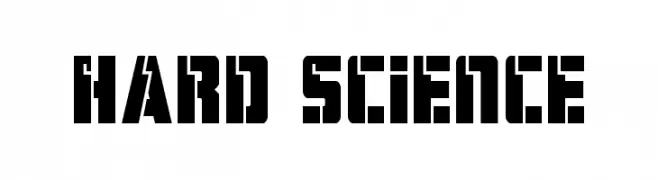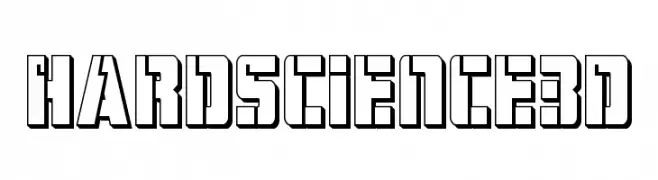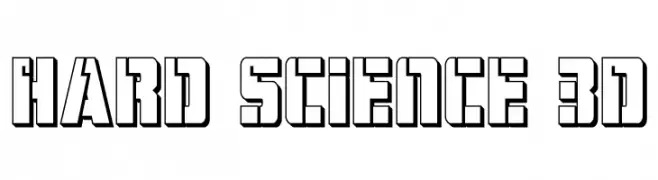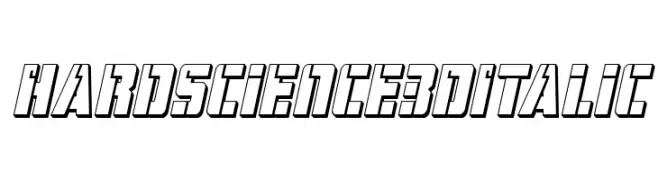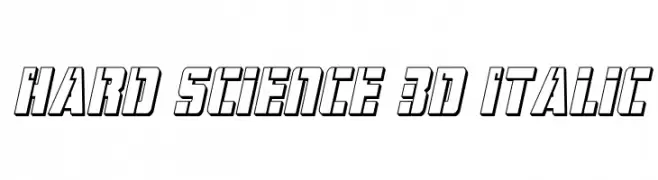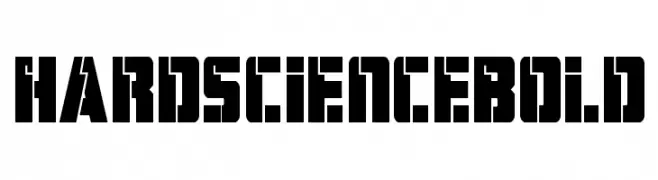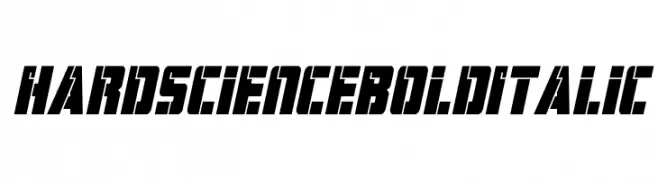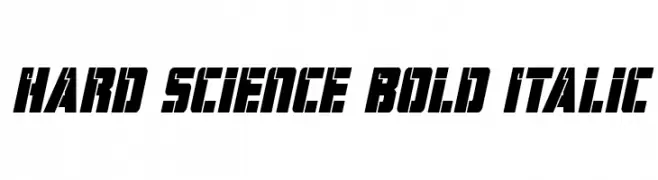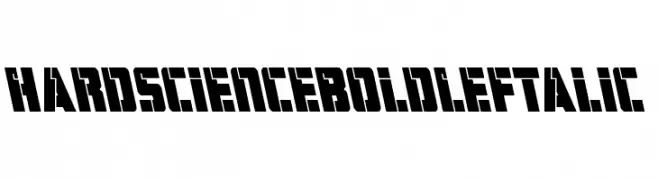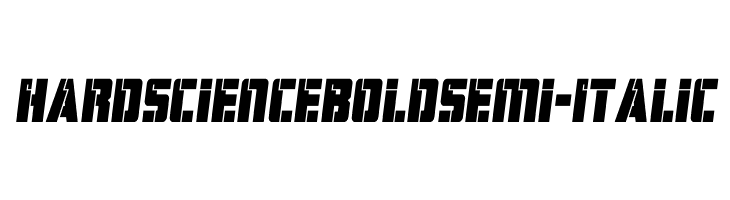
A bold, geometric font with an industrial and futuristic style.
A bold, 3D outlined font with a modern, futuristic style.
A bold, 3D geometric font with strong outlines and industrial appeal.
A bold, 3D italic font with a futuristic and dynamic style.
A bold, geometric font with a futuristic and industrial style.
A bold, italicized, futuristic font with sharp angles and a dynamic design.
A bold, italicized font with a futuristic and dynamic design.
A bold, left-leaning font with sharp, geometric shapes and a futuristic style.